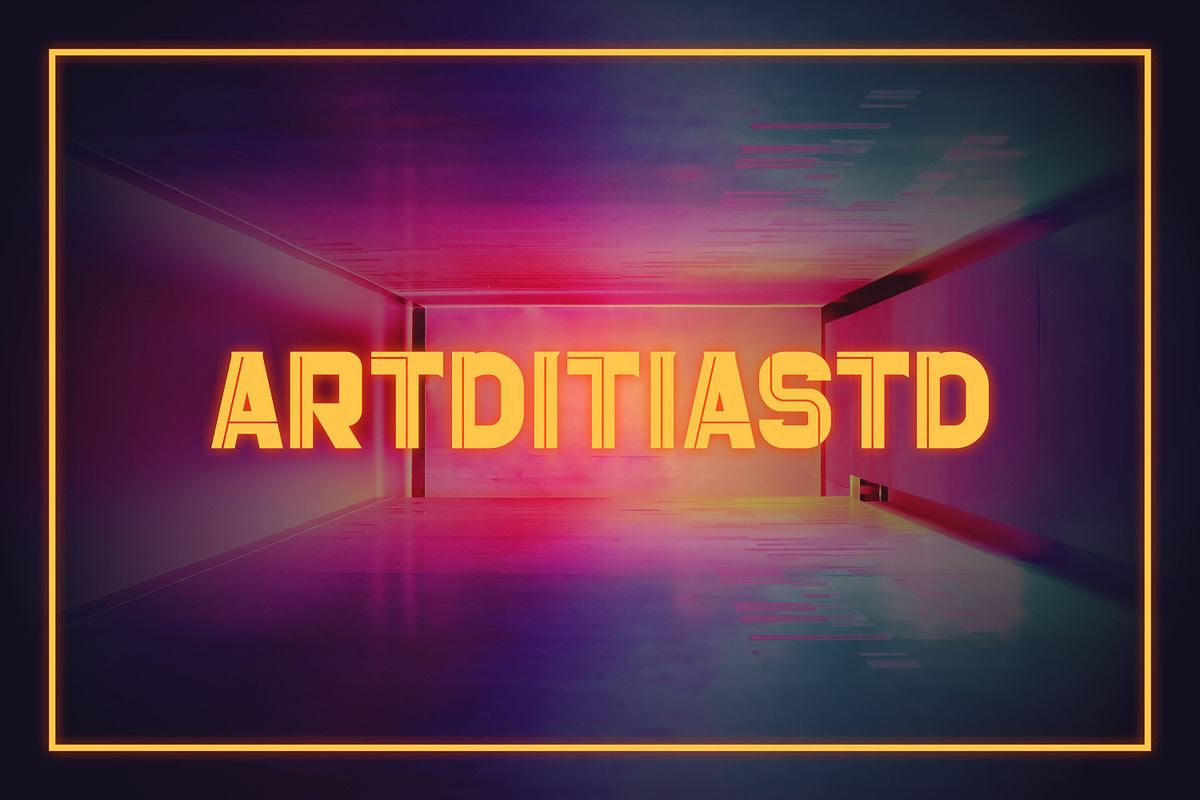
Dutas Font Free Download is a bold and modern display typeface that blends clean geometric shapes with a confident, stylish personality. Ideal for branding, poster design, music covers, urban apparel, digital artwork, and standout headlines, Dutas brings a sleek and contemporary feel to any creative project.
With its sharp edges, strong presence, and versatile letterforms, Dutas captures attention instantly while maintaining readability. It's a great choice for creatives looking to inject power and precision into their typography, whether in print or on screen.